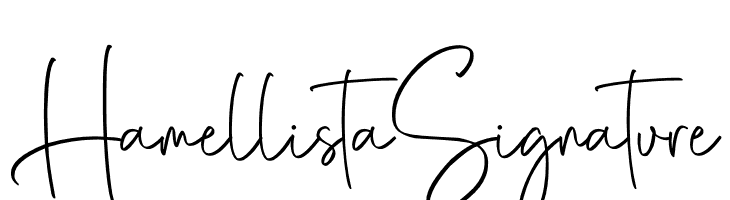
A modern, elegant handwritten font with smooth, flowing lines.
A graceful, fluid handwritten font with elegant cursive strokes.
An elegant and flowing script font with graceful curves and loops.
A sophisticated script font with flowing, interconnected letters and ornate details.
An elegant script font with flowing curves and decorative flourishes.
A graceful, flowing handwritten script with elegant curves and loops.
A modern, elegant handwritten font with fluid, continuous strokes.
A modern, elegant handwritten font with fluid, connected strokes.
An elegant, flowing script font with a natural handwritten style.